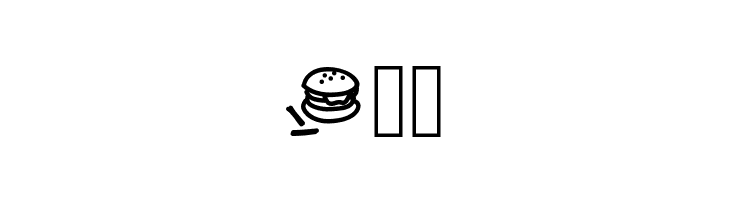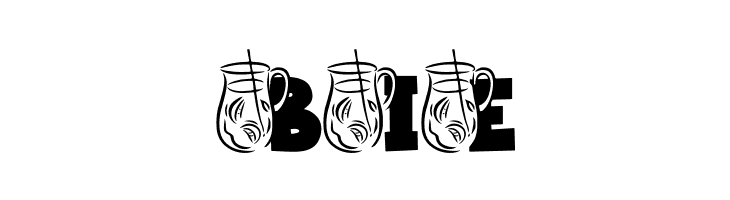
A bold, modern collection of drink-themed icons in black silhouette style.
A playful icon set featuring food, beverages, and decorative symbols with a cartoonish style.
A decorative font with characters illustrated as various alcoholic beverages.
A textured, playful font with a frothy, liquid-like appearance.
A decorative font with playful, hand-drawn food icons.
A playful, lemonade-themed decorative font with bold, whimsical characters.
A playful font with characters inside bottle shapes, offering a fun and unique style.
A display font made from glass and bottle silhouettes.